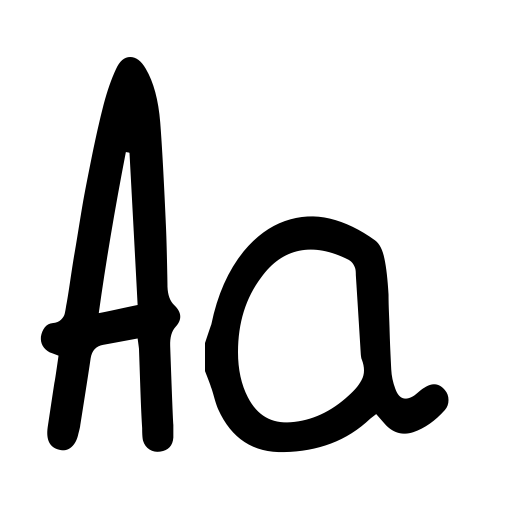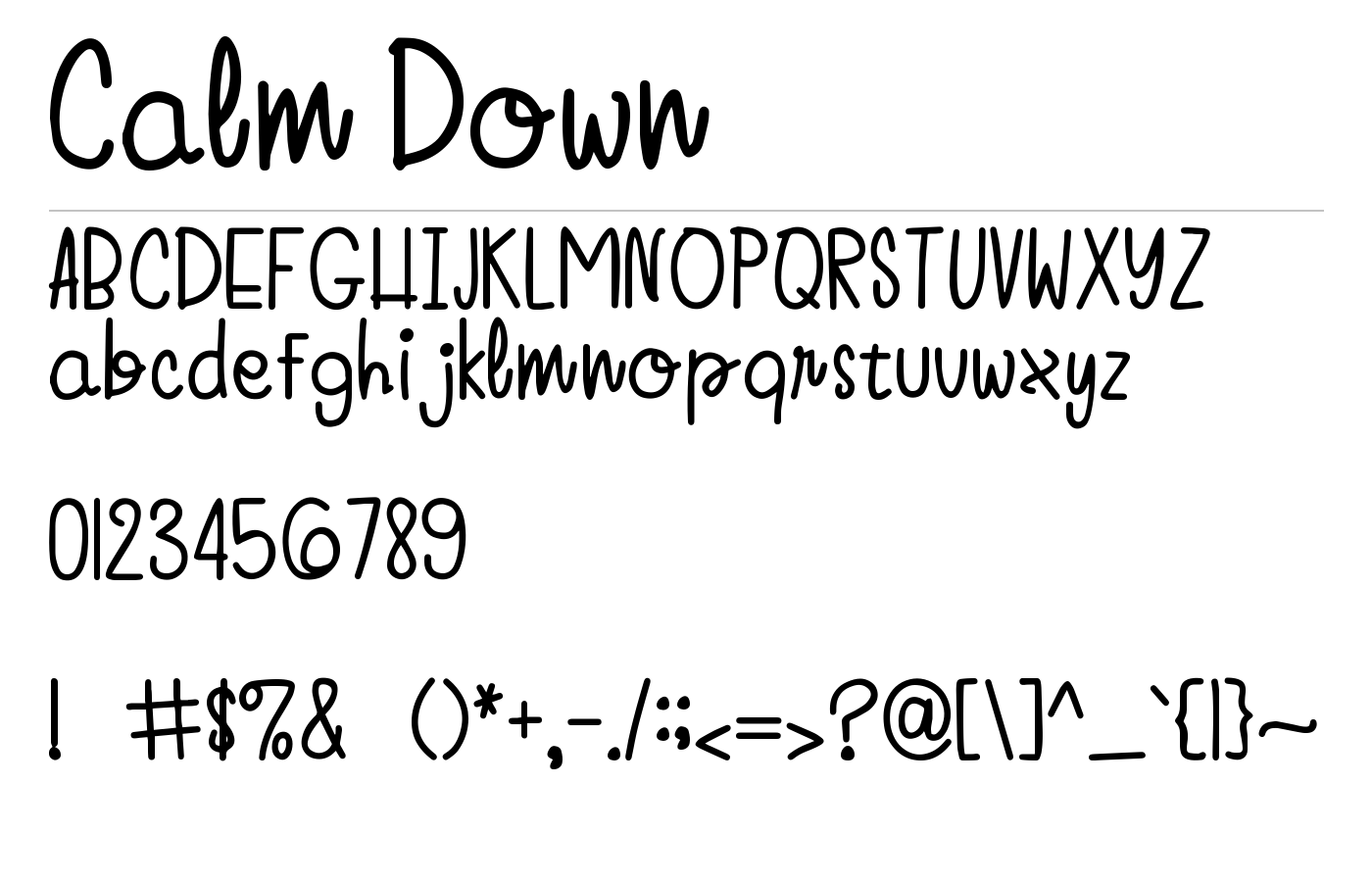
Calm Down Font is a playful, hand-drawn sans serif typeface with a casual and friendly vibe. Its tall, slightly irregular letterforms and medium stroke weight give it an approachable, informal feel, making it ideal for creative projects, children’s books, and lighthearted branding. This font works best where a relaxed, personal touch is desired, such as invitations, lifestyle websites, or fun editorial layouts.
Calm Down Font
About Calm Down Font